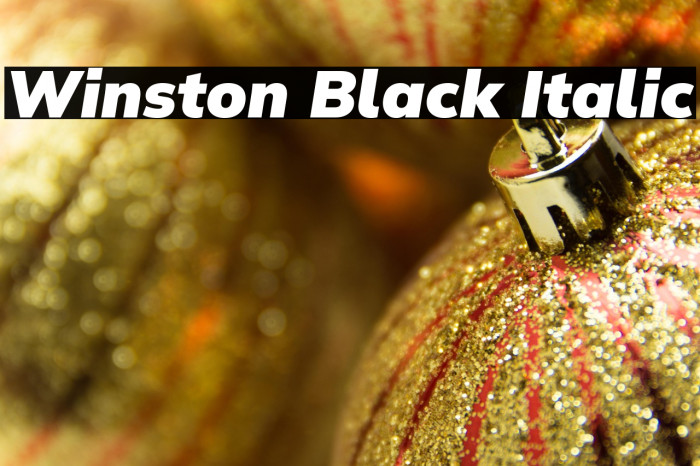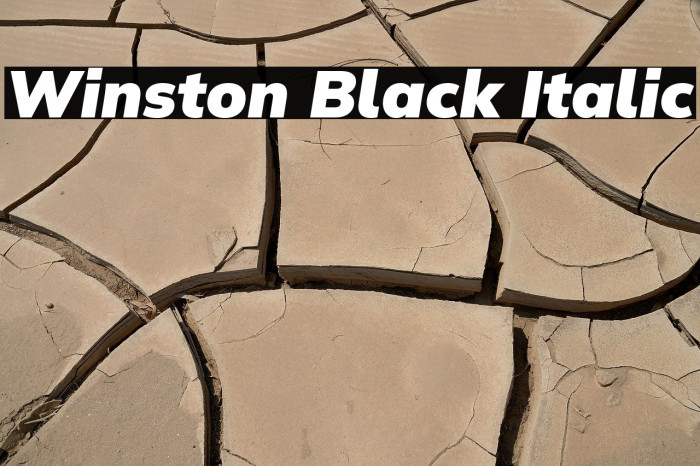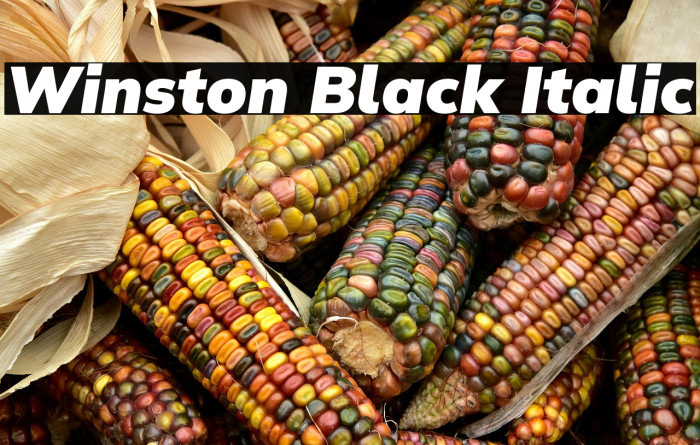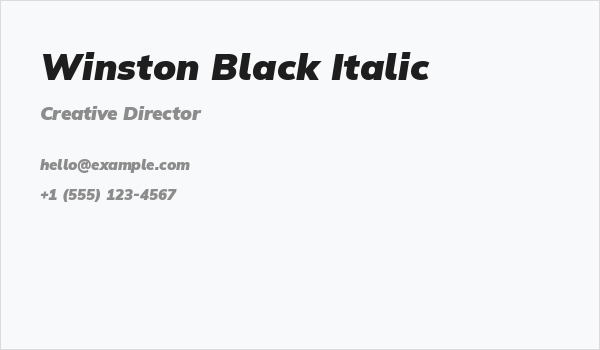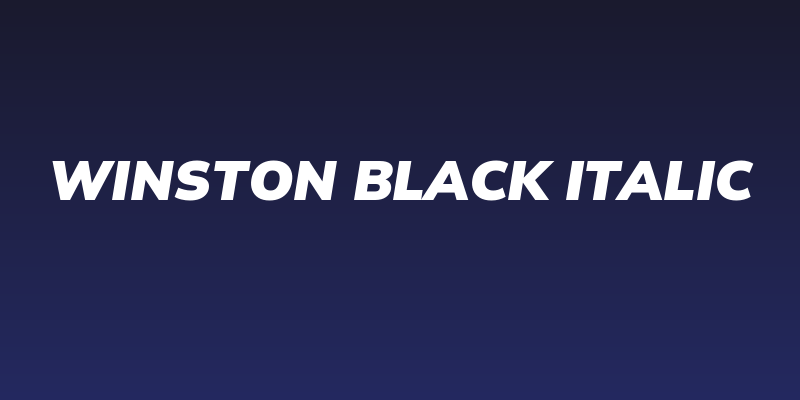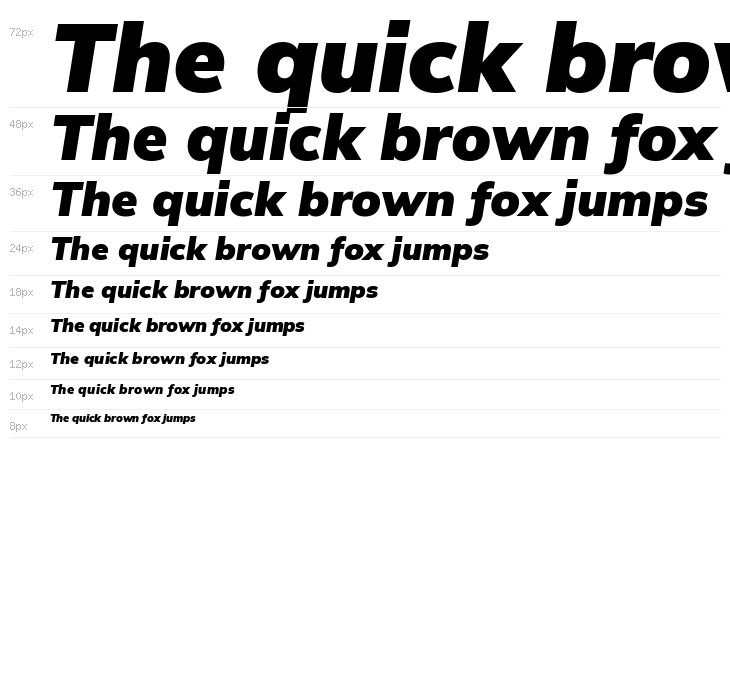
Winston Black Italic Font
Winston Black Italic Description
This font features a bold and dynamic style with a strong italic slant, giving it a sense of movement and energy. The characters are thick and robust, making them highly visible and impactful. The uppercase and lowercase letters maintain a consistent weight, ensuring readability across different sizes. The numbers and special characters are designed to match the boldness of the alphabet, providing a cohesive look. The overall appearance is modern and assertive, suitable for making a strong visual statement.
| Use Case | Headlines, Logos, Advertising |
| Proposed Projects | Ideal for headlines, advertising, branding, and any project that requires a strong, impactful typeface. |